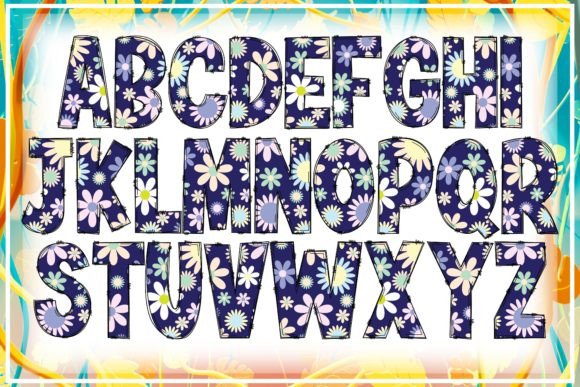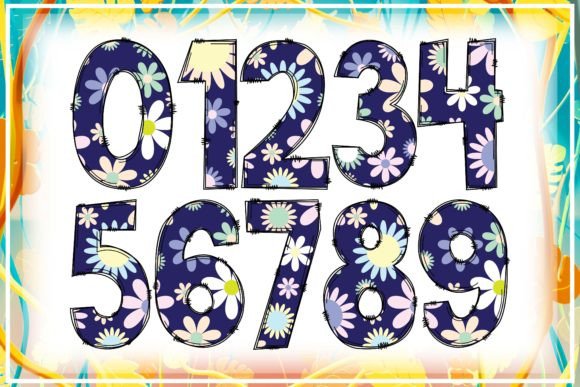
Floral Font
Floral is a full-color font that features heavy color lettering in pastels with some flowers here and there. Add this chunky-lettered font to your designs and notice how it makes them come alive!